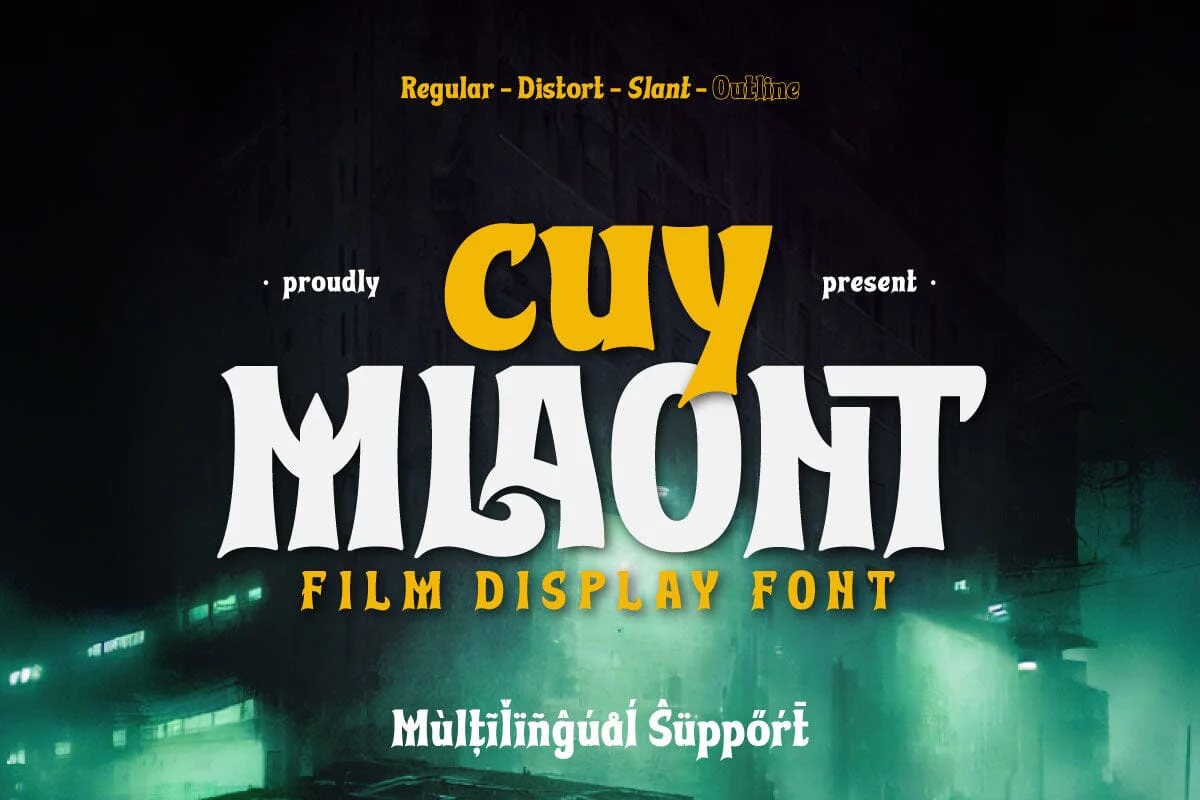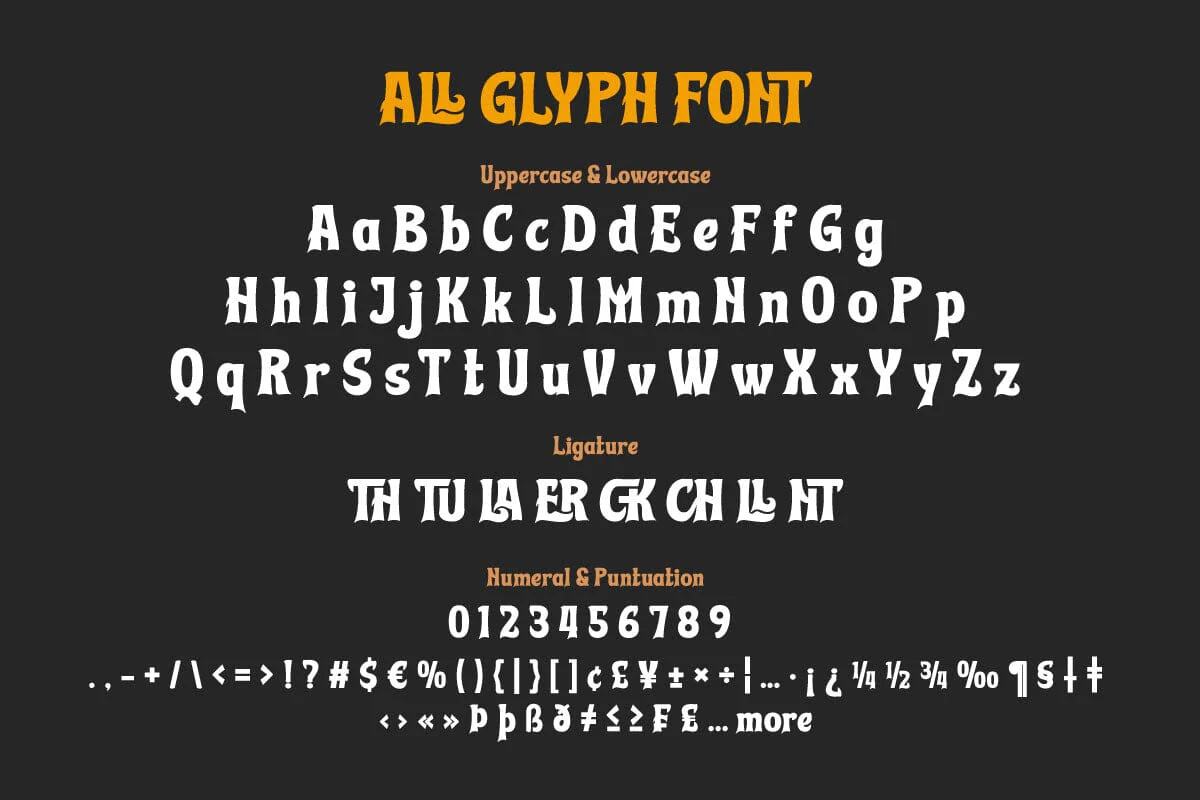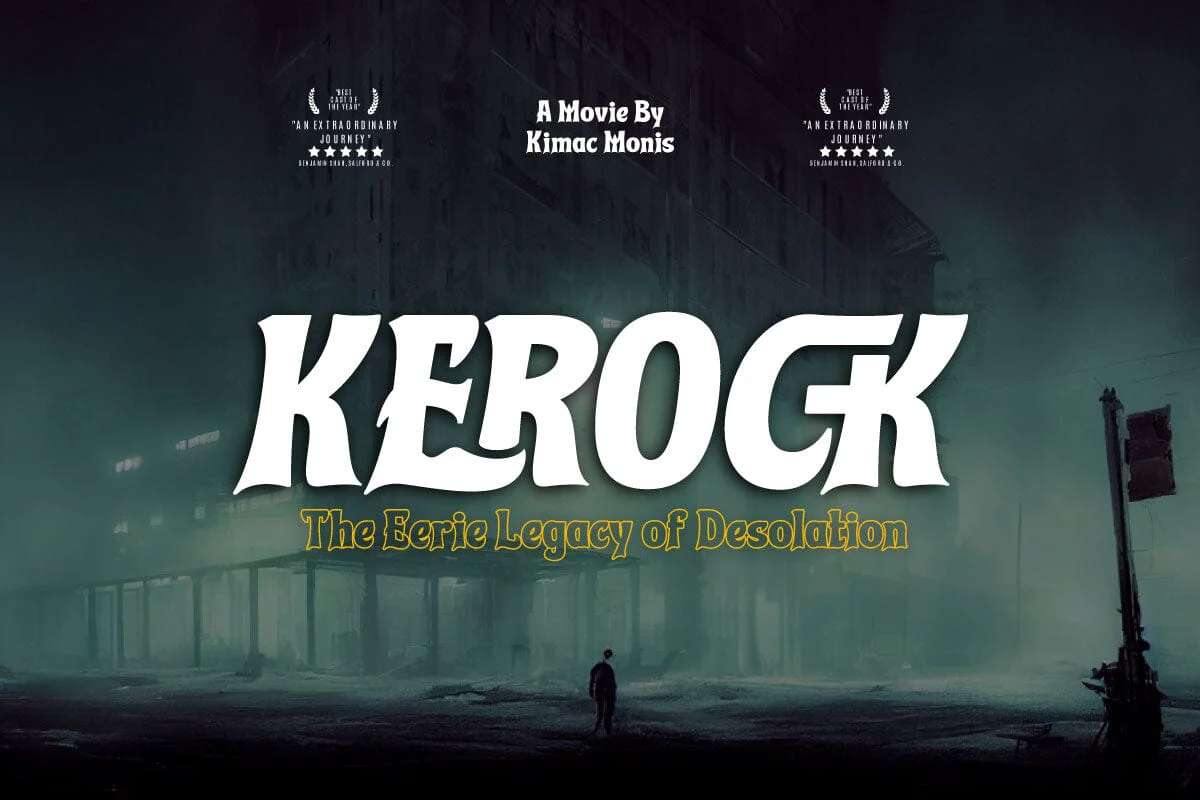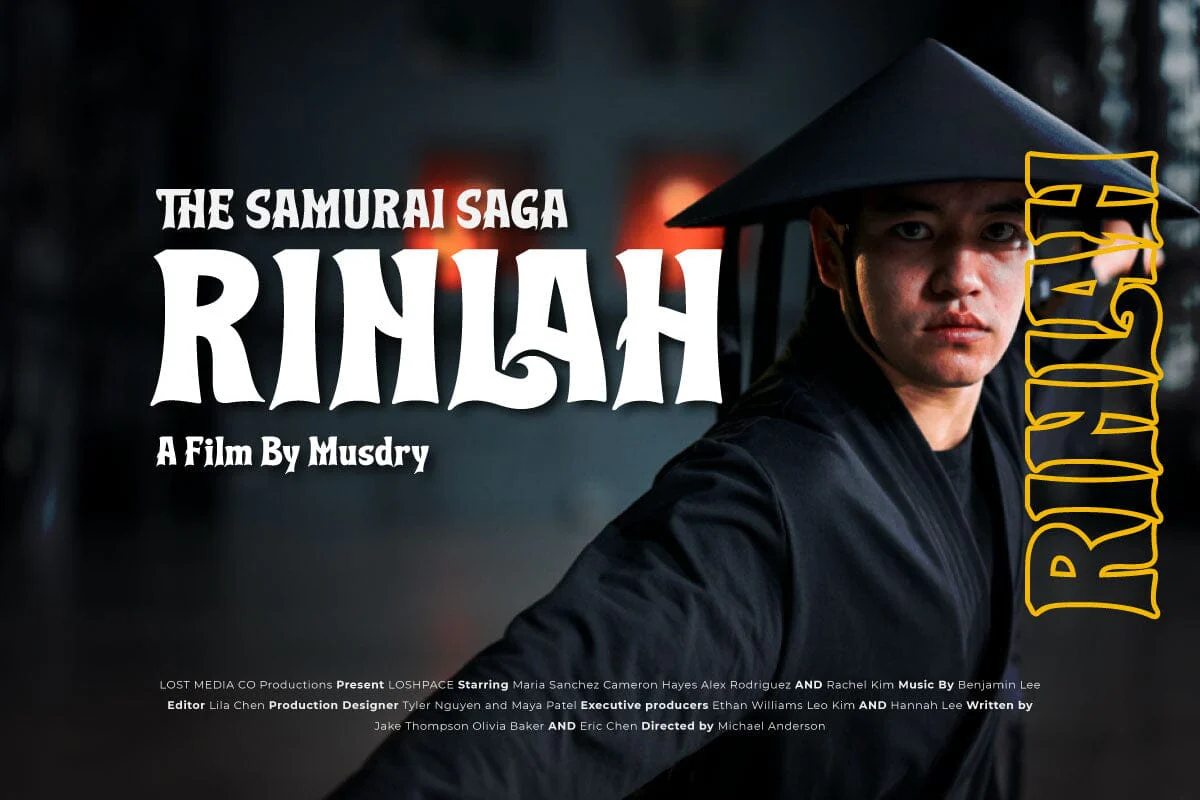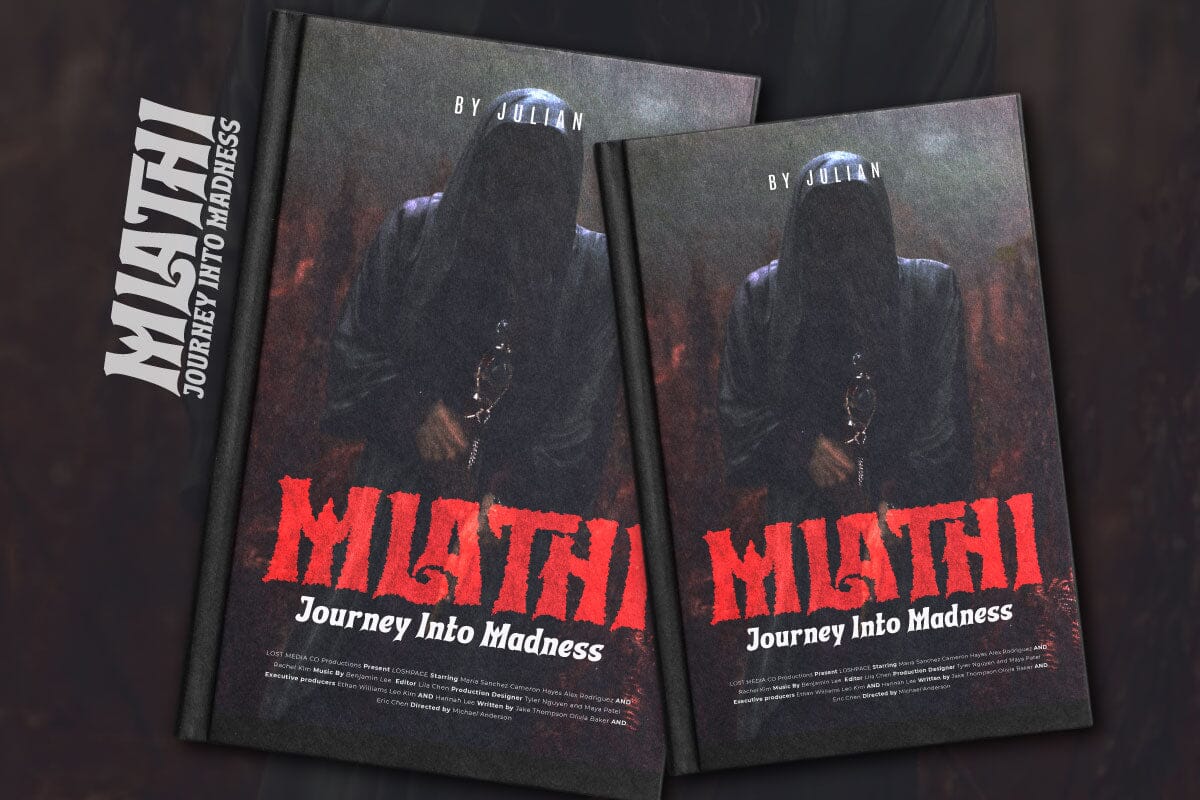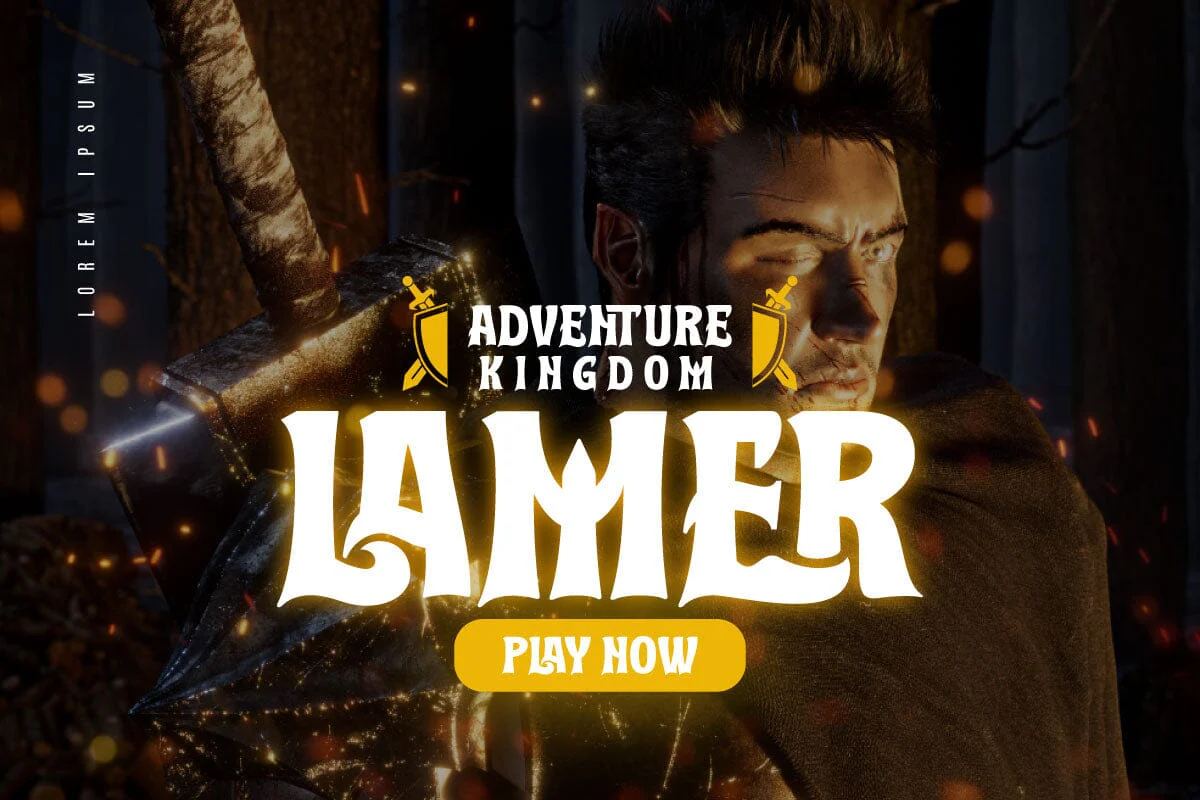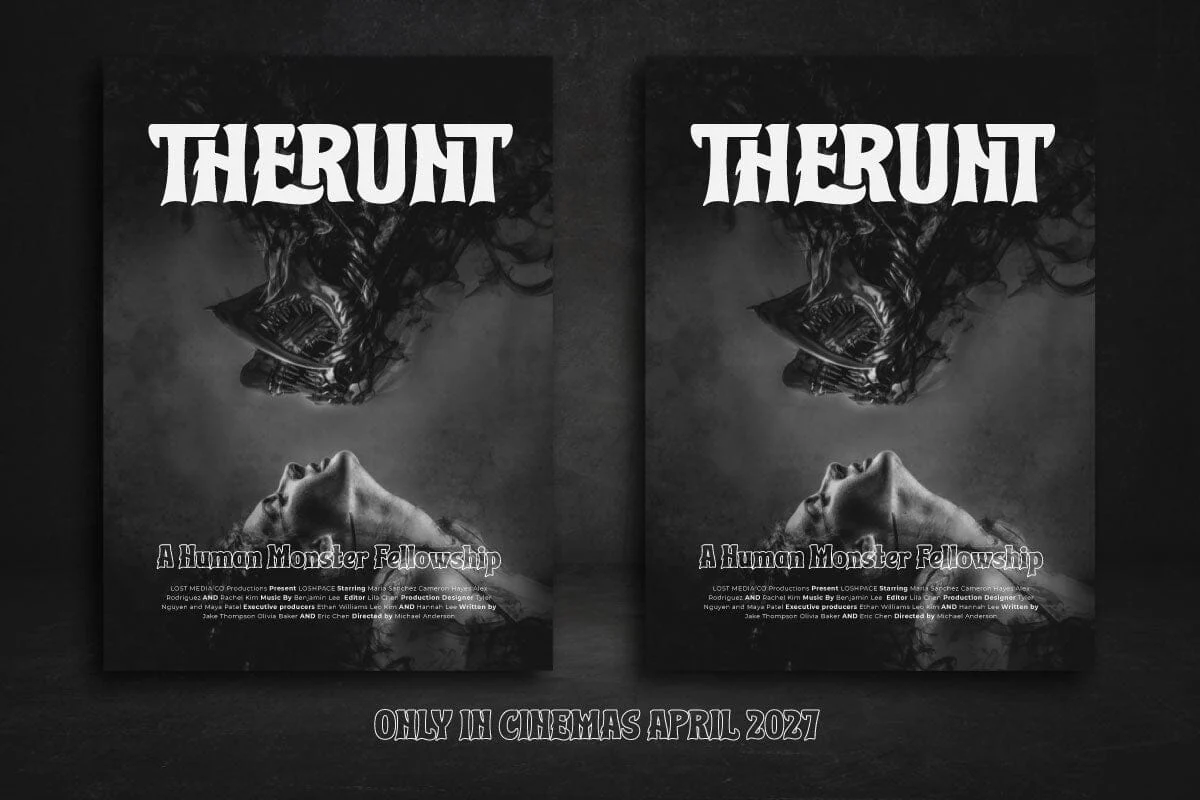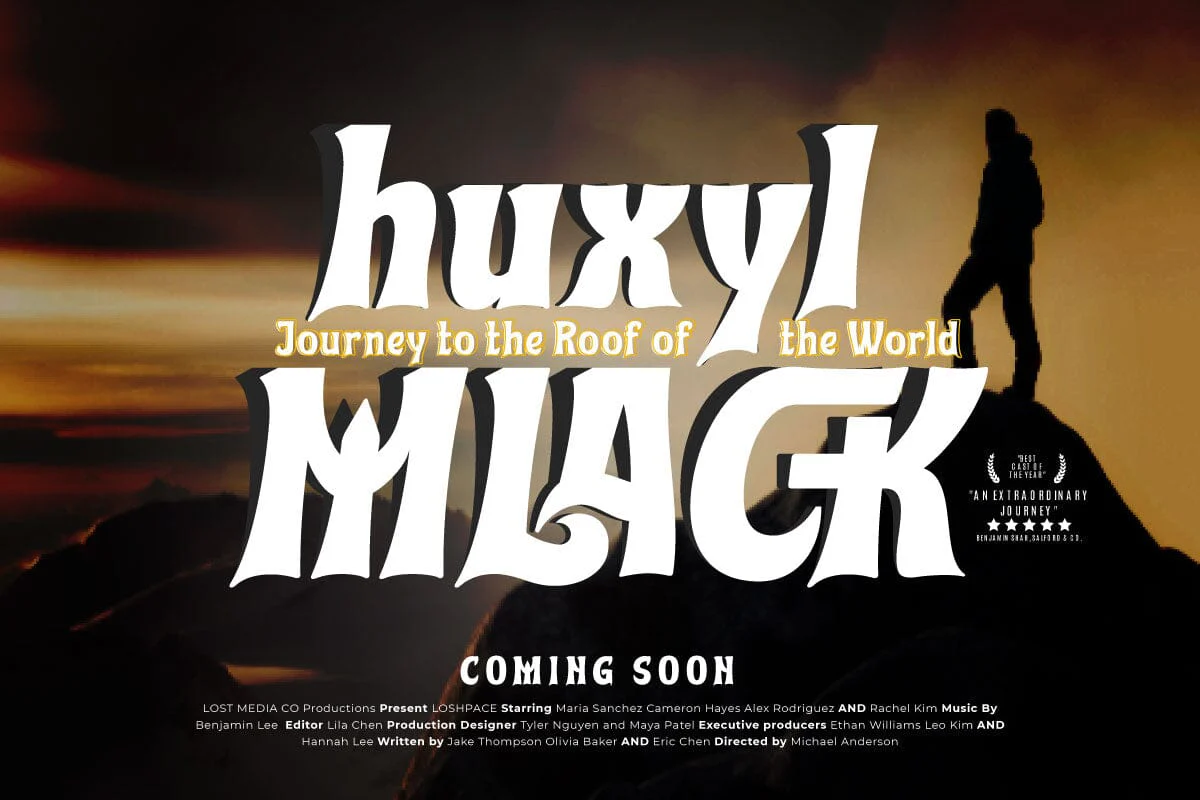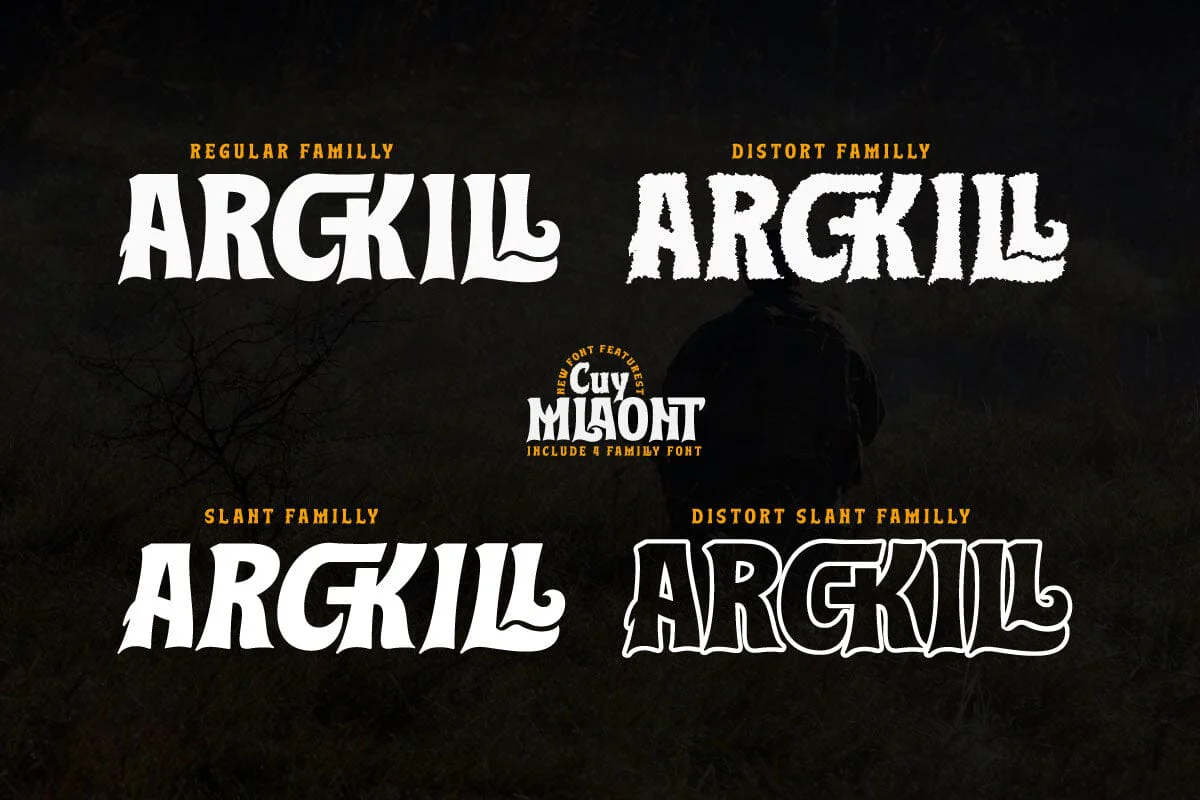
Cuy Mlaont - Film Display Font
Cuy Mlaont is a display typeface specifically designed to create a dramatic and cinematic look in film-related design projects. This font combines modern elements with an artistic touch, creating a strong and striking typographic character.
Each letter in Cuy Mlaont has a strong and bold design, with details that emphasize the dramatic elements. This font is ideal for film titles, posters, or other film promotional materials that require a striking visual effect and depict a cinematic feel.
Cuy Mlaont provides an exclusive and professional look, making it a great choice for creating eye-catching design elements in the world of cinema. This font can create a deep and striking impression, supporting film design projects with a unique cinematic character.
Cuy Mlaont is a display typeface specifically designed to create a dramatic and cinematic look in film-related design projects. This font combines modern elements with an artistic touch, creating a strong and striking typographic character.
Each letter in Cuy Mlaont has a strong and bold design, with details that emphasize the dramatic elements. This font is ideal for film titles, posters, or other film promotional materials that require a striking visual effect and depict a cinematic feel.
Cuy Mlaont provides an exclusive and professional look, making it a great choice for creating eye-catching design elements in the world of cinema. This font can create a deep and striking impression, supporting film design projects with a unique cinematic character.